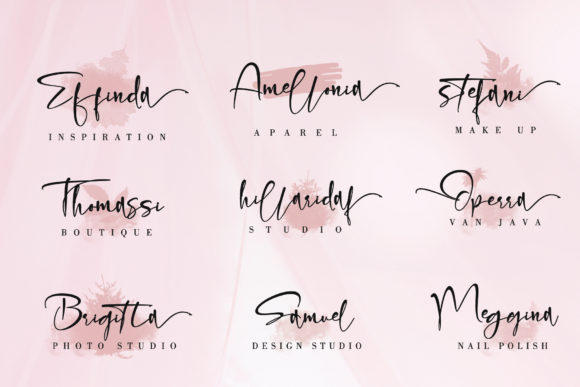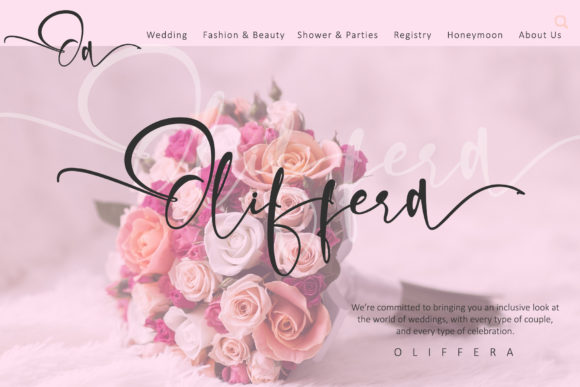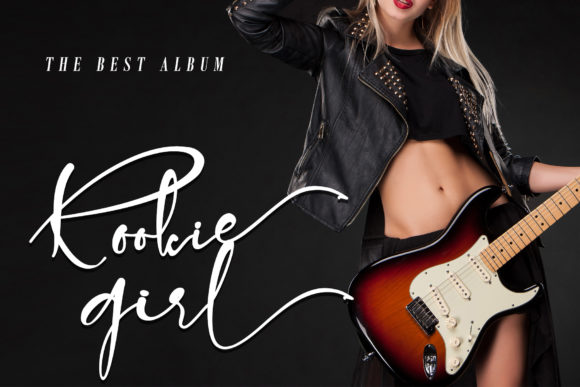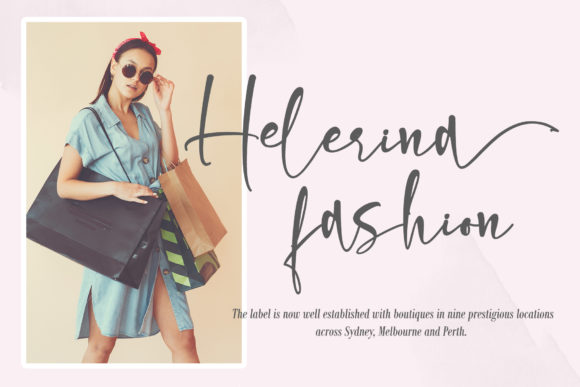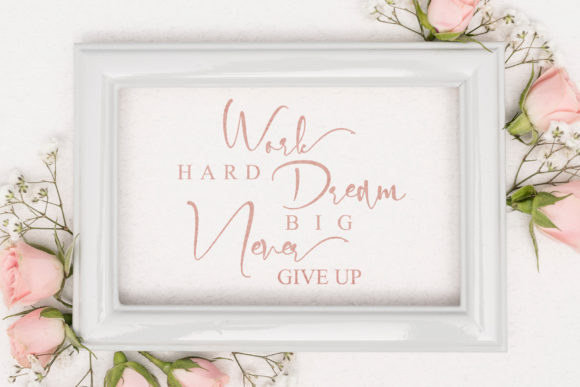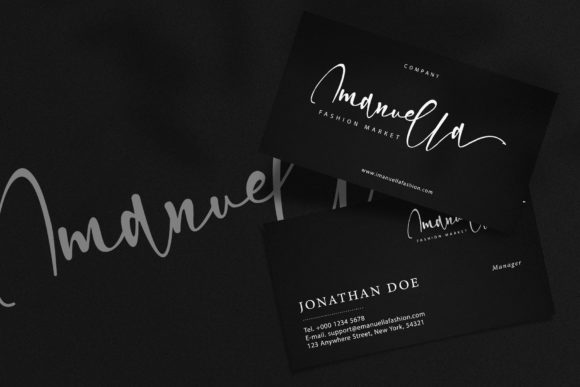
Introduction to Olliffia Font
Remember that moment when a design idea strikes you, and you can’t wait to bring it to life? For designers, this is a feeling we all know too well. The rush of excitement as we envision our creative project taking shape, with every element carefully crafted to convey our message. But sometimes, it’s the little things that make all the difference – like the perfect font.
Enter the Olliffia Font, a modern and sweet handwritten font that’s sure to turn any design idea into a true standout. Whether you’re working on a project that requires a free download with a transparent background or simply need a high-quality font to elevate your design resource, Olliffia Font has got you covered.
Key Features of Olliffia Font
- Unique and elegant font style with a transparent background, allowing for seamless integration into various designs.
- Features a large character set, including Latin, Cyrillic, and Greek alphabets, making it suitable for multilingual projects.
- Available in a single weight, perfect for creating a cohesive and professional look in your design.
- Perfect for designers and artists looking for a high-quality, free design resource to enhance their creative projects.
Honest Review: Olliffia Font
I recently had the chance to work with the Olliffia Font, and I must say it’s been a pleasant experience. As a designer, I’m always on the lookout for high-quality design resources that can elevate my creative projects. The Olliffia Font delivers on that front, offering a sleek and modern aesthetic that’s perfect for a variety of applications.
What works well: ✨ The font is incredibly versatile and can be used in a range of contexts, from web design to print materials. The transparent background makes it easy to customize and integrate with different design elements. The font also comes in a range of weights and styles, giving you plenty of options to experiment with.
However, there are a few limitations to consider: ⚠️ The font may not be suitable for all audiences, as some characters may appear slightly awkward or inconsistent. Additionally, the font may require some tweaking to ensure proper alignment and spacing.
Overall, I’m impressed with the Olliffia Font. While it may have some minor drawbacks, its high-quality design and flexibility make it a valuable addition to any designer’s toolkit. If you’re looking for a reliable and stylish font for your next project, the Olliffia Font is definitely worth checking out.
- High-quality design and modern aesthetic
- Range of weights and styles for versatility
The Olliffia Font is a versatile and elegant design resource that can elevate your creative project to the next level. This high-quality font is available for free download, making it an ideal choice for designers and artists on a budget.
Tips for Getting the Most Out of Olliffia Font
To get the most out of Olliffia Font, use it in combination with other design elements to create a cohesive and visually appealing design. Experiment with different font sizes, colors, and styles to find the perfect look for your project.
Olliffia Font is ideal for use in a variety of creative projects, including logos, business cards, brochures, and website headers. Its elegant typography and transparent background make it perfect for designs that require a touch of sophistication and style.